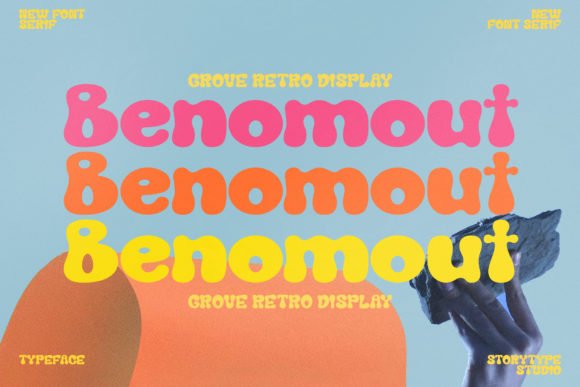
The Perfect Blend of Retro Charm and Luxury Elegance
As designers, we’ve all been there – staring at a blank canvas, trying to bring a client’s vision to life. The cursor blinks, taunting us with its emptiness, until suddenly, a spark of inspiration strikes. For those who crave that perfect blend of retro charm and luxury elegance, the Benomout Font is about to become your new best friend.
This stunning display font is more than just a pretty face – it’s a game-changer for designers looking to elevate their projects to the next level. Whether you’re crafting an elegant logo, designing a book or movie title, or creating a fashion brand’s signature look, the Benomout Font is the perfect tool for the job. Its versatility and sophistication make it a valuable addition to any designer’s toolkit, and its unique style is sure to leave a lasting impression.
Key Features of Benomout Font
- Unique Characteristics: Benomout Font features a unique blend of modern and vintage elements, with a distinctive geometric shape and a touch of elegance
Designer Review: Benomout Font
When I first laid eyes on the Benomout Font, I was struck by its unique blend of modern and vintage elements. ✨ The font’s eclectic mix of thick and thin lines, along with its geometric shapes, creates a visually striking visual identity that’s sure to grab attention. ✨ The font’s versatility makes it suitable for a wide range of applications, from fashion and beauty to tech and gaming.
One of the standout features of Benomout is its high x-height, which makes it highly legible even at small font sizes. ✨ This makes it an excellent choice for body text, signage, and other applications where readability is crucial. Additionally, the font’s OpenType features allow for a wide range of creative possibilities, from ligatures to swashes.
While Benomout is a highly versatile font, it’s not without its limitations. ⚠️ One of the main drawbacks is its limited language support, which may make it less suitable for international applications. ⚠️ Additionally, the font’s bold weights can appear somewhat clunky at small font sizes, which may detract from its overall legibility.
Overall, I’m impressed by the Benomout Font’s unique design and versatility. While it may have some limitations, it’s an excellent choice for designers looking to add a touch of modern sophistication to their projects. With its high x-height, OpenType features, and eclectic style, Benomout is sure to become a staple in many designers’ toolkits.
- High x-height for improved legibility
- OpenType features for creative possibilities
- Unique blend of modern and vintage elements
- Suitable for a wide range of applications
Practical Application Guide for Benomout Font
The Benomout font is a versatile font that can be used in a variety of designs, including:
- Logo designs
- Business cards
- Brochures
- Web design
For the best results, use the Benomout font in combination with other fonts and design elements to create a unique and visually appealing design.